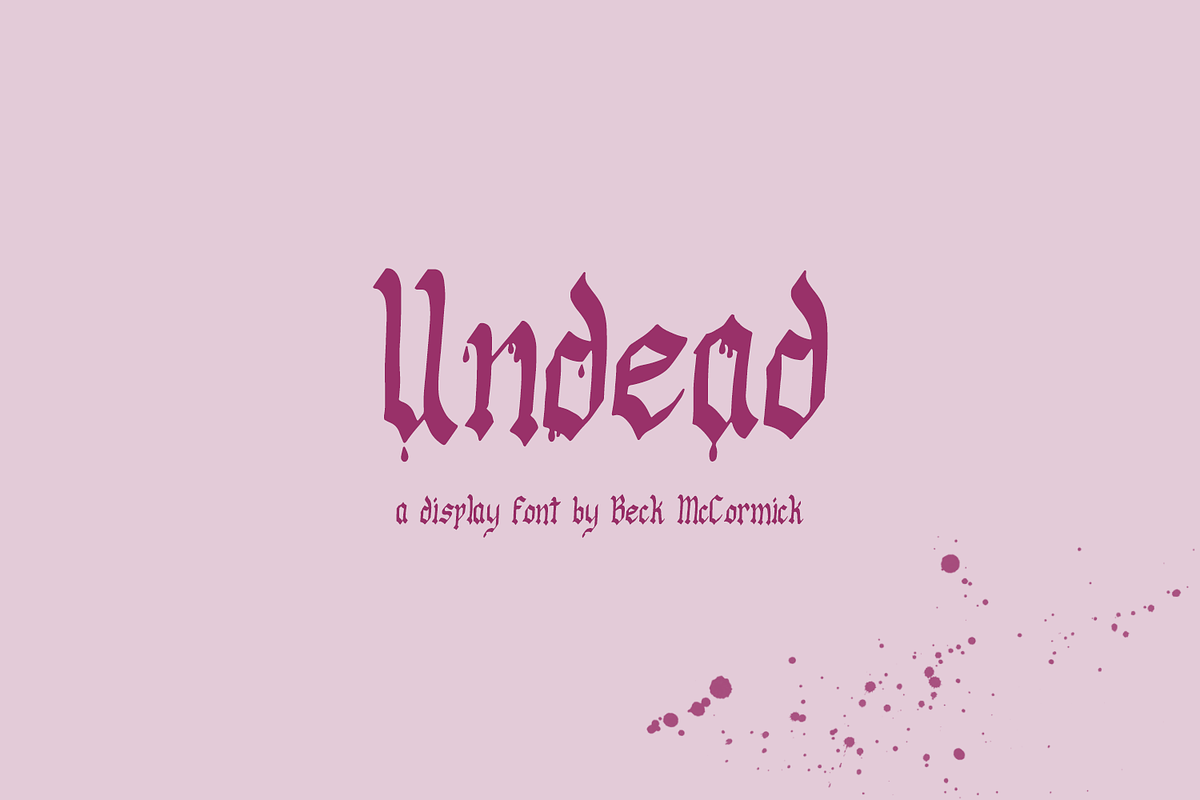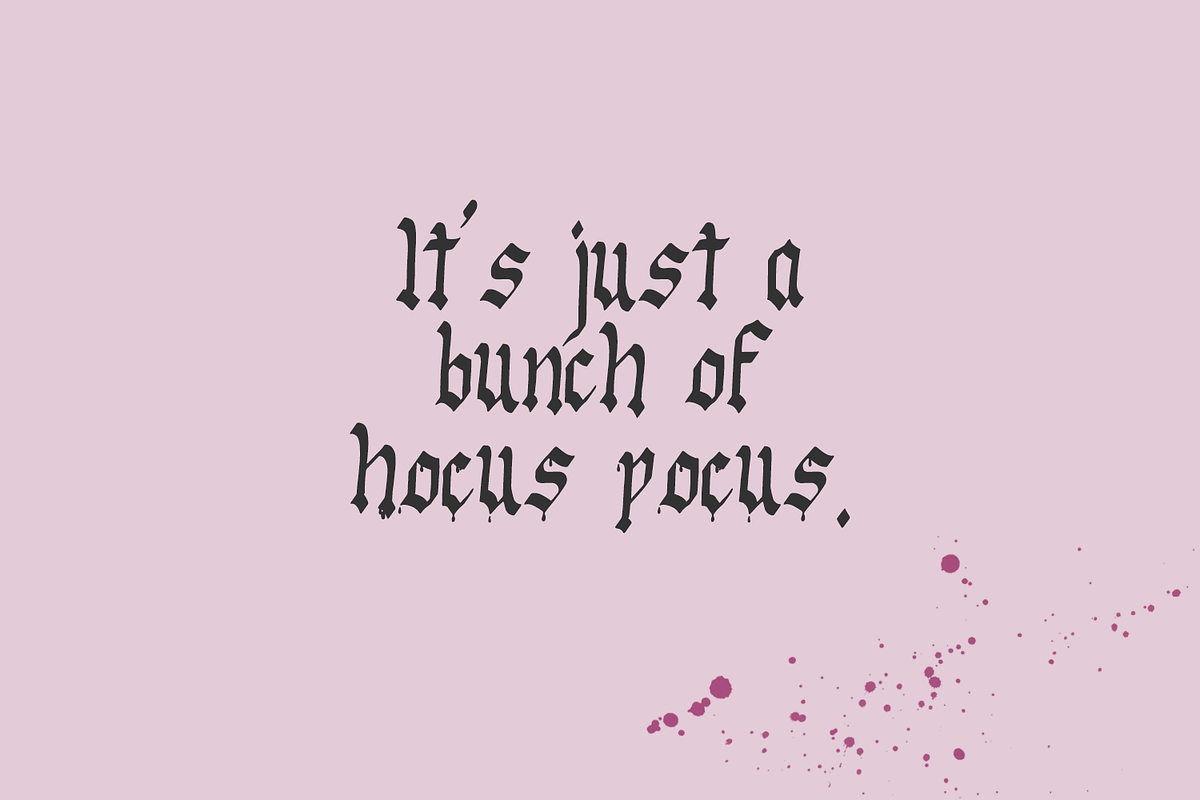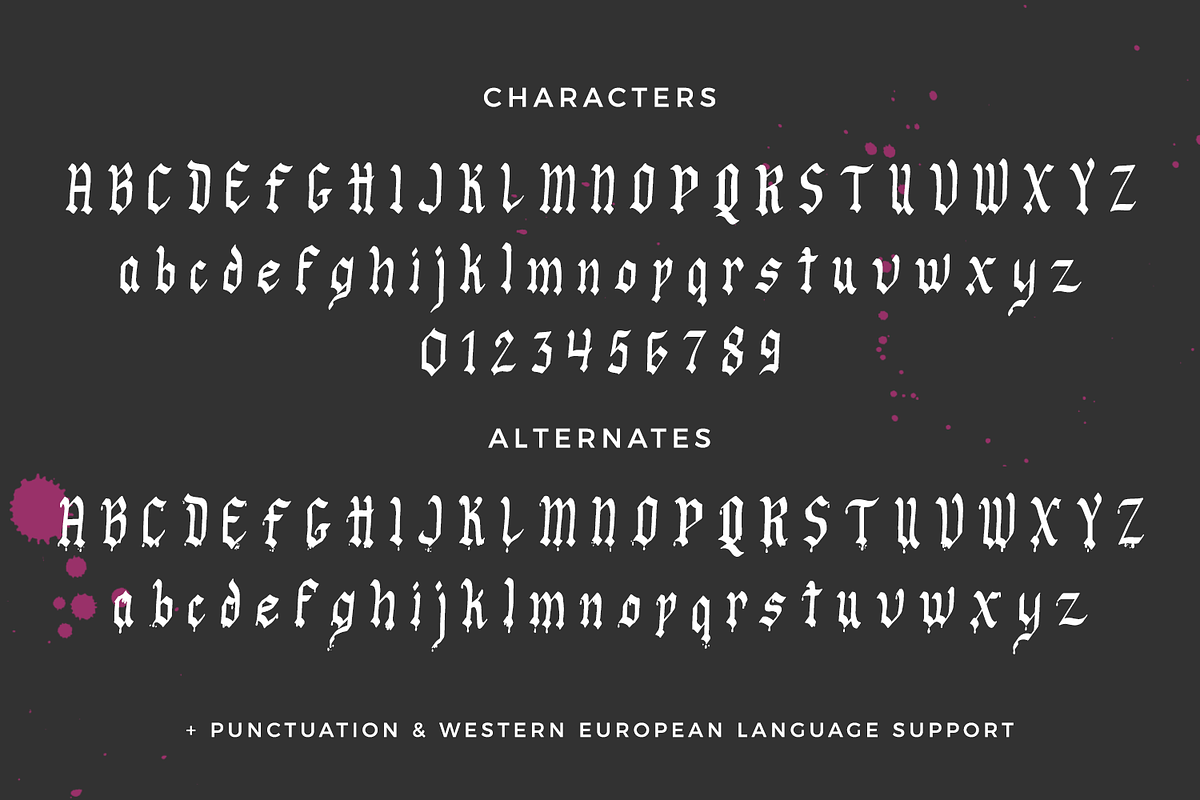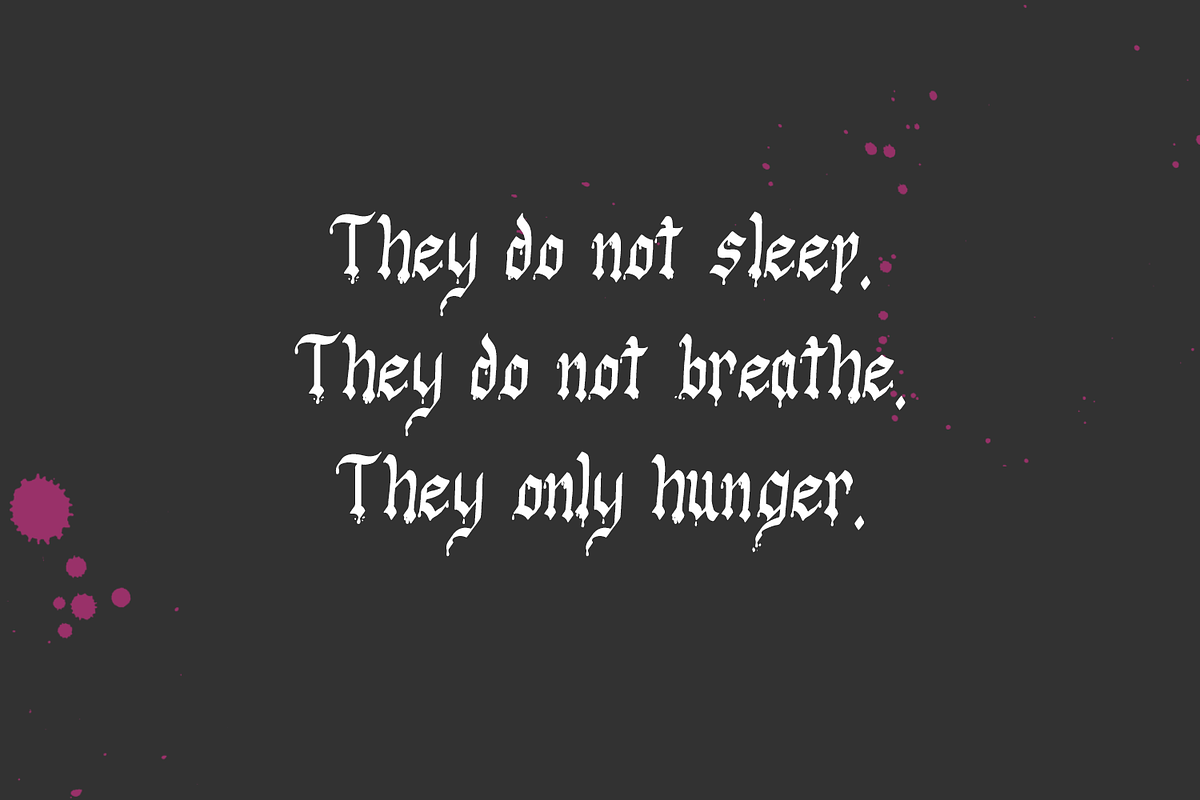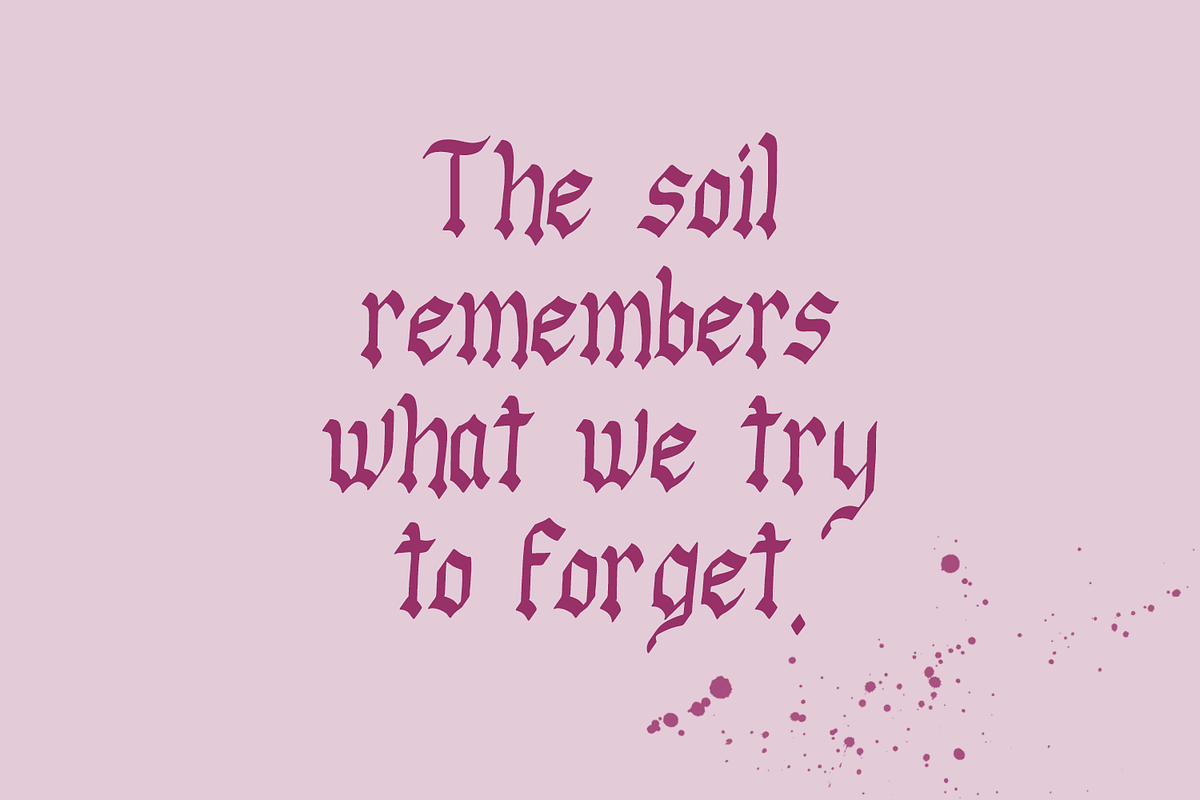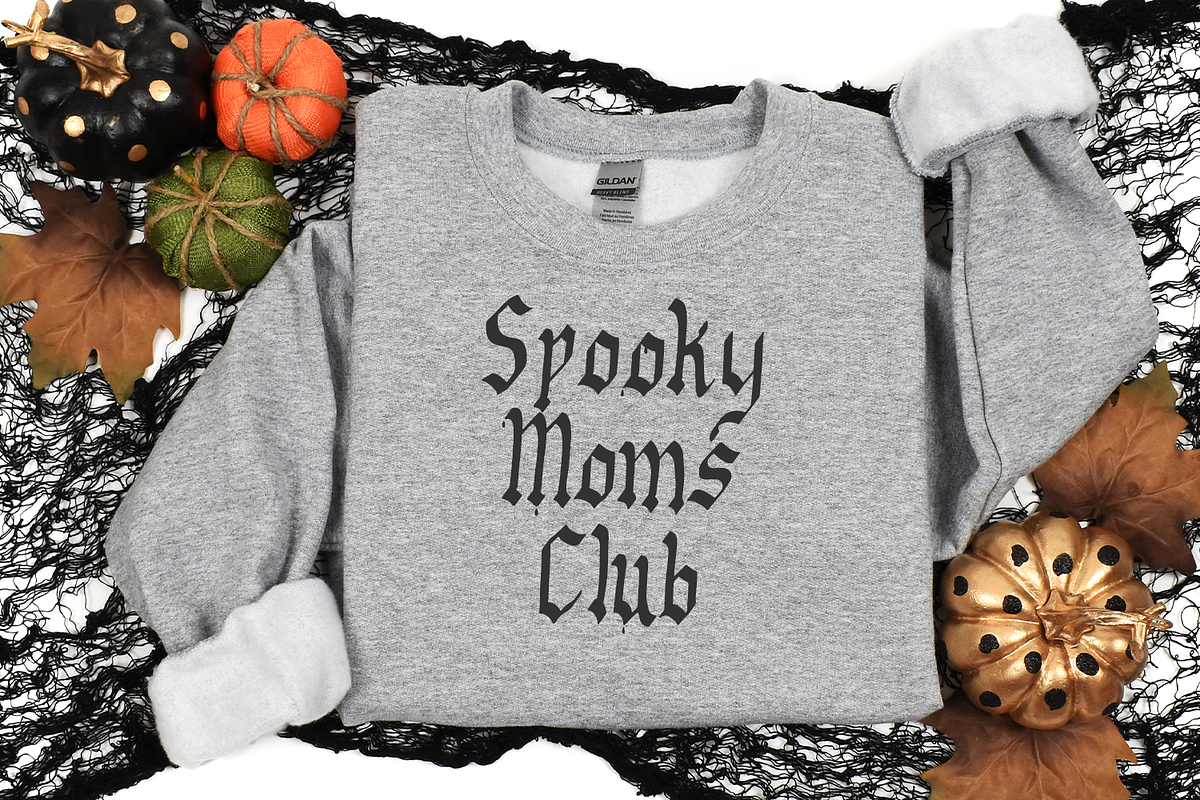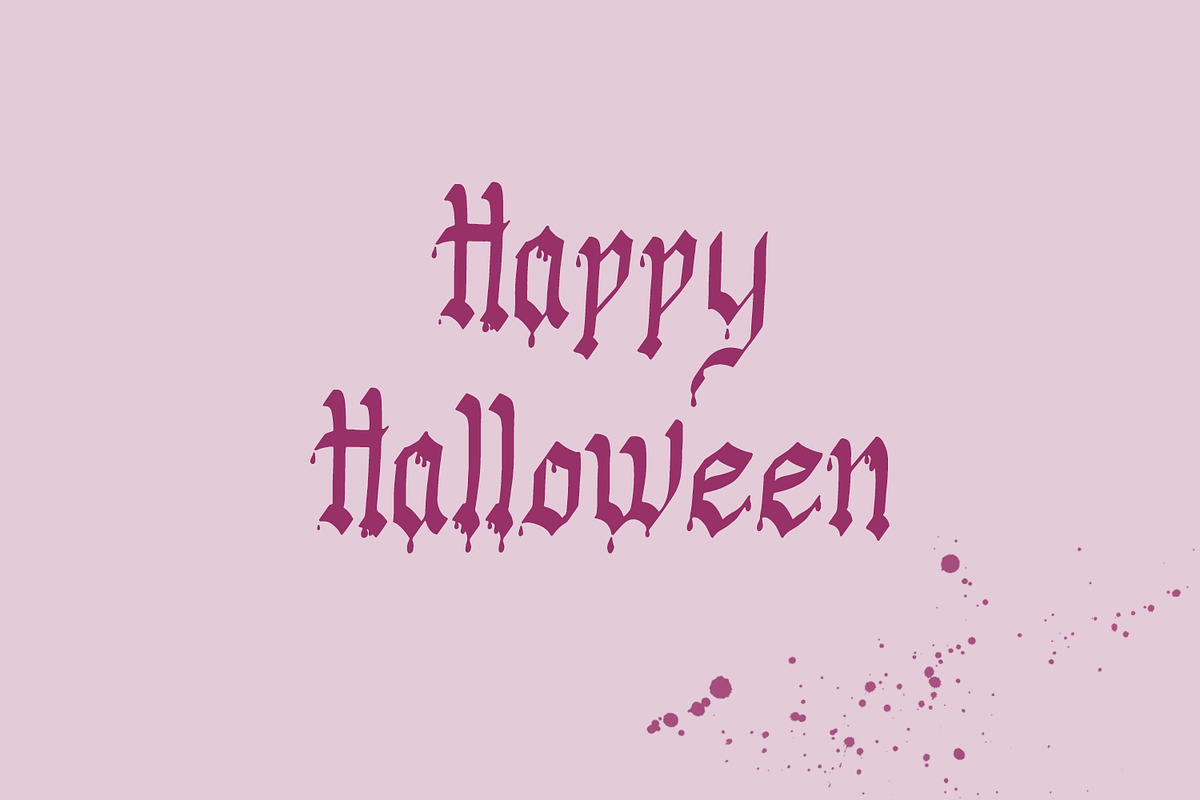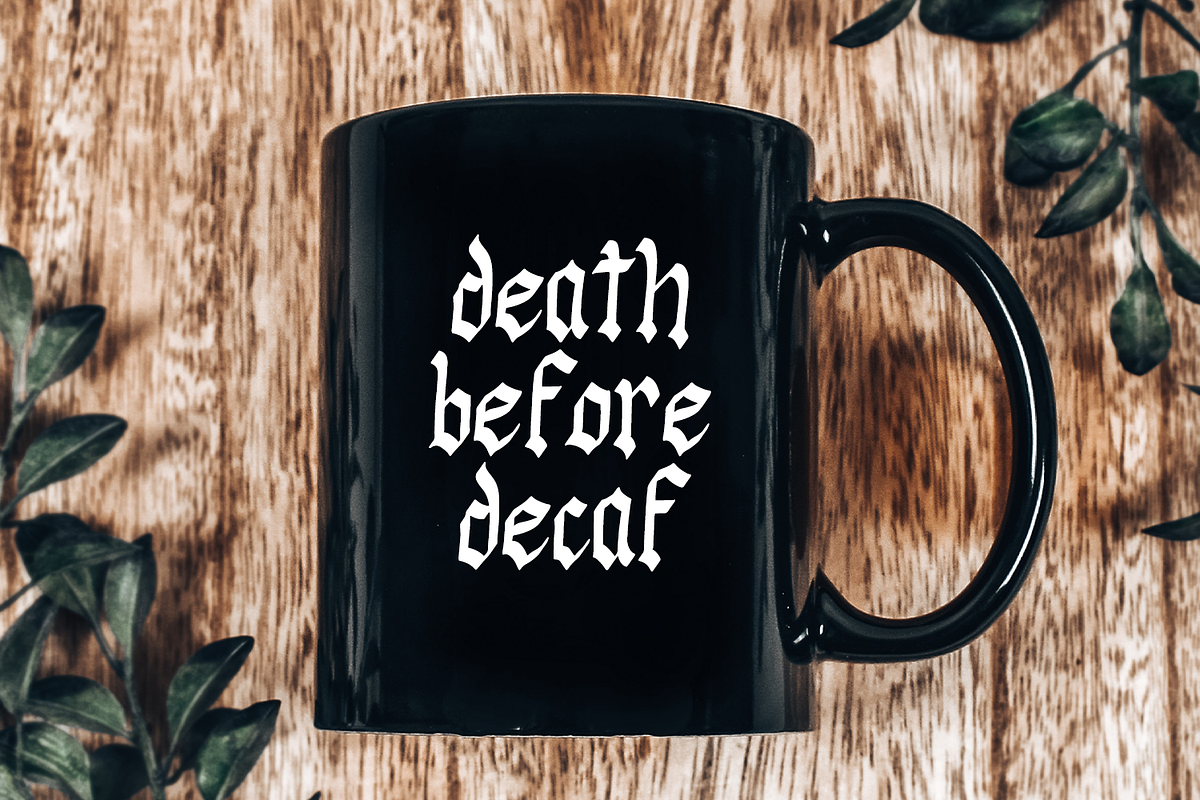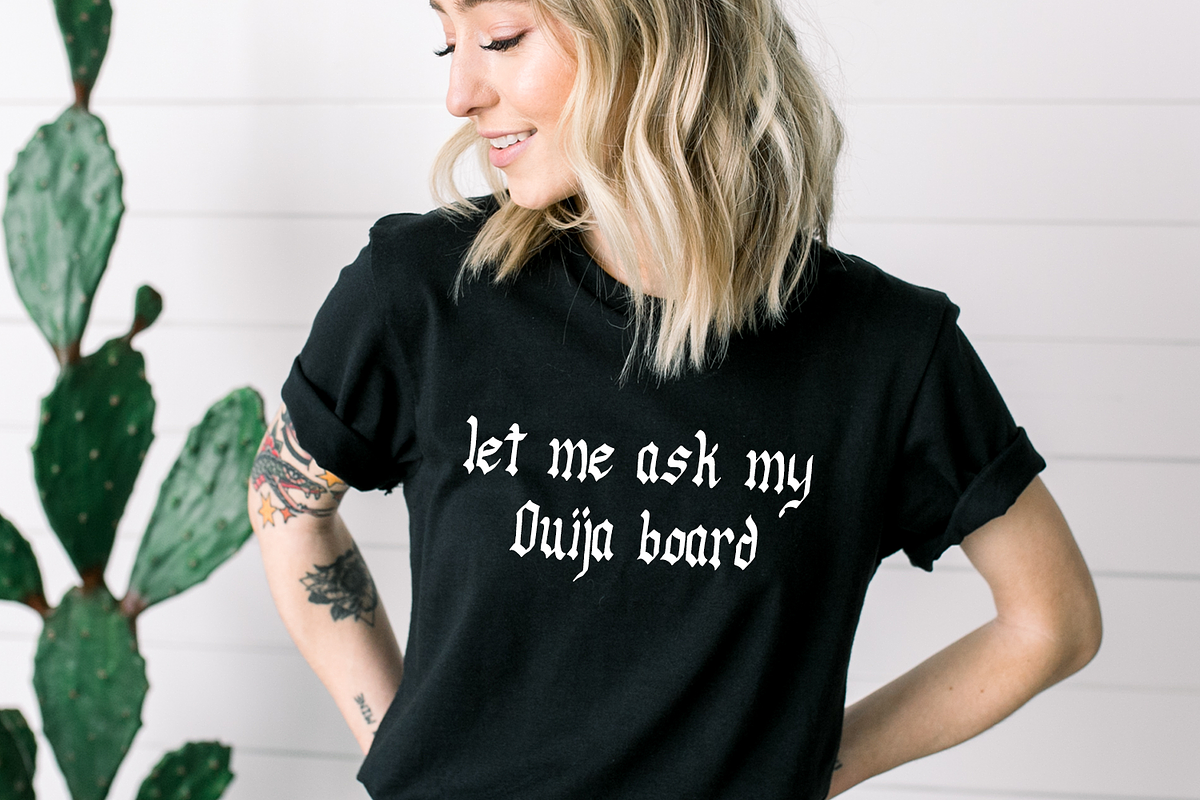
Undead Display - Bloody Font
Introducing Undead, a blackletter font that includes drippy alternates. Undead is a fantastic fit for your scary vampire designs. This font is well-suited for Halloween crafting projects with your Cricut or Silhouette machine, and can be used for things like shirts, signs, labels, marketing materials, social media, SVG designs, greeting cards & other print items, and even spooky logos & branding.
Undead includes:
- full upper + lowercase characters
- numbers + punctuation
- 52 bloody alternates A-Z, a-z